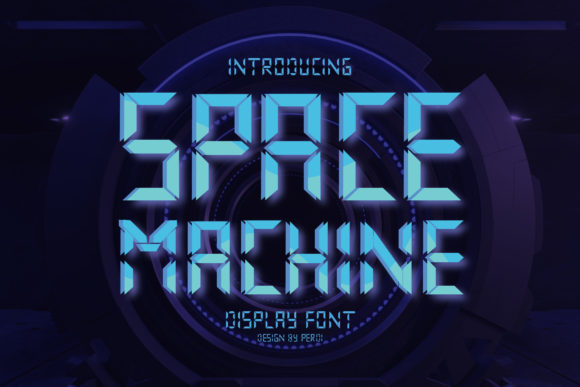
In a universe of visual expressions, where fonts hold the power to transform words into captivating spectacles, allow us to introduce you to Space Machine Display Font – a celestial symphony of digital innovation. This extraordinary display font hails from the creative minds at Nerdstudio, renowned for their ability to craft typographic masterpieces that transcend the ordinary.
With its robust and futuristic character, Space Machine Display Font breaks the boundaries of conventional design. Its sharp edges and angular strokes evoke a sense of technological precision, while its dynamic curves hint at the boundless possibilities of the digital realm. The result is a font that exudes a unique blend of strength and fluidity, captivating the eyes and igniting the imagination.
Step into a world where typography transcends mere communication and becomes an art form. Space Machine Display Font is not just a collection of letters; it's a gateway to a universe of creative possibilities. Its distinctive style adds an instant touch of modernity and sophistication to any design, whether it's a striking logo, a captivating social media post, or an eye-catching product packaging. Unleash your creativity and watch as Space Machine Display Font transforms your designs into works of art.
Picture this: a logo that leaps off the screen, demanding attention with its bold and striking presence. A social media post that captivates your audience, leaving them scrolling for more. A packaging design that whispers luxury and exclusivity, enticing customers to reach out and explore. With Space Machine Display Font, these visions become a reality.
But we don't stop there. Space Machine Display Font is a versatile chameleon, adapting effortlessly to a multitude of design endeavors. From handwritten quotes that carry the weight of emotion to product packaging that speaks volumes about your brand's identity, this font delivers unparalleled versatility. It's the perfect companion for headers and posters that demand attention, merchandise that sparks conversations, and any other design project where you seek to leave an indelible mark.